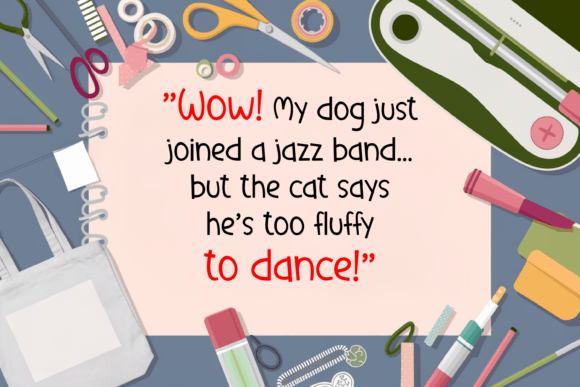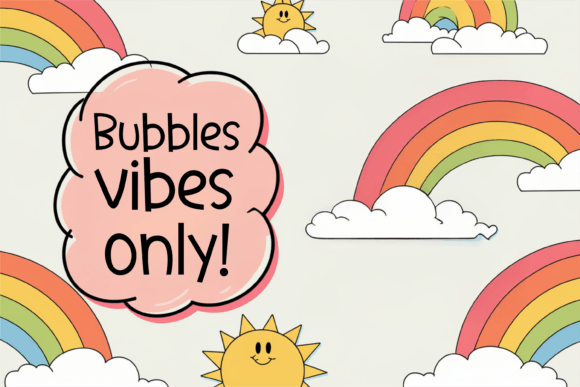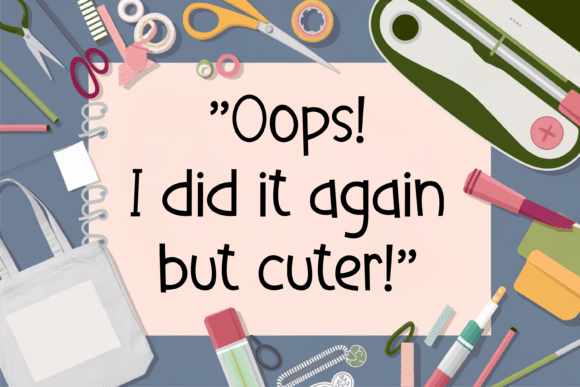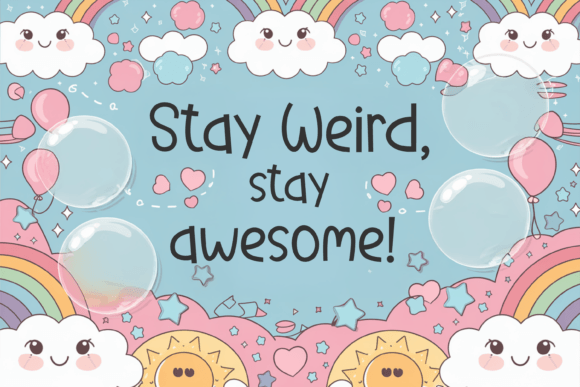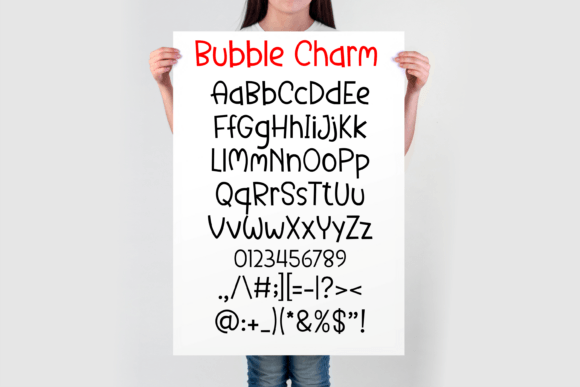
Introducing the Bubble Charm Font: Add a Touch of Whimsy to Your Designs
Are you tired of using the same old fonts in your designs? Do you want to add a touch of personality and whimsy to your creations? Look no further than the Bubble Charm Font! This adorable, spherically-styled, and mischievously playful handwritten typeface is perfect for craft lovers seeking to infuse personalized charm into their distinctive designs.
What Makes Bubble Charm Font So Special?
The Bubble Charm Font is defined by its lively, rounded letters with an artful twist inspired by spontaneous doodles. Its unique and playful design makes it perfect for a variety of creative endeavors, from crafting and scrapbooking to graphic design and digital art. The font’s whimsical nature is sure to bring a spark of joy and a splash of fun to any project.
Perfect for Craft Lovers
Craft lovers, rejoice! The Bubble Charm Font is the ultimate companion for anyone who loves to create with their hands. Whether you’re a Cricut, Silhouette, Procreate, or Canva user, this font is perfect for adding a personal touch to your designs. With its easy-to-use and versatile design, you can use it to create a wide range of projects, from DIY signs and cards to custom vinyl decals and digital art.
Key Features of Bubble Charm Font
- Unique and Playful Design: The Bubble Charm Font features a one-of-a-kind, spherically-styled design that’s sure to turn heads.
- Handwritten Style: With its artful twist inspired by spontaneous doodles, this font has a warm and inviting feel that’s perfect for craft projects.
- Versatile: Use it for a wide range of creative endeavors, from crafting and scrapbooking to graphic design and digital art.
How to Use Bubble Charm Font in Your Designs
Using the Bubble Charm Font in your designs is easy! Here are a few tips to get you started:
- Pair it with Other Fonts: Combine the Bubble Charm Font with other fonts to create a unique and eye-catching design.
- Experiment with Colors: Try out different colors and color combinations to add an extra pop of fun to your designs.
- Add Graphics and Images: Use the Bubble Charm Font to add a personal touch to your graphics and images.
Ideas for Using Bubble Charm Font
The possibilities are endless when it comes to using the Bubble Charm Font! Here are a few ideas to get you started:
- DIY Signs and Cards: Use the Bubble Charm Font to create personalized signs and cards for special occasions.
- Custom Vinyl Decals: Add a touch of whimsy to your custom vinyl decals with the Bubble Charm Font.
- Digital Art: Use the Bubble Charm Font to add a personal touch to your digital art creations.
- Scrapbooking: Add a playful touch to your scrapbooking projects with the Bubble Charm Font.
The Bubble Charm Font is a unique and playful handwritten typeface that’s perfect for craft lovers seeking to infuse personalized charm into their distinctive designs. With its lively, rounded letters and artful twist inspired by spontaneous doodles, this font is sure to bring a spark of joy and a splash of fun to any project. So why wait? Download the Bubble Charm Font today and start adding a touch of whimsy to your designs!